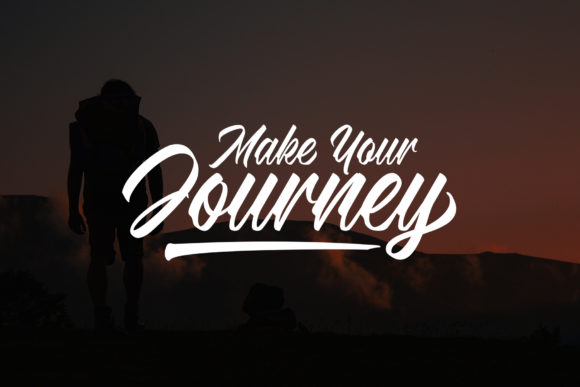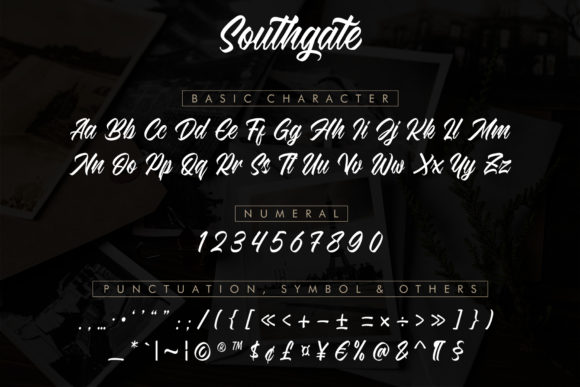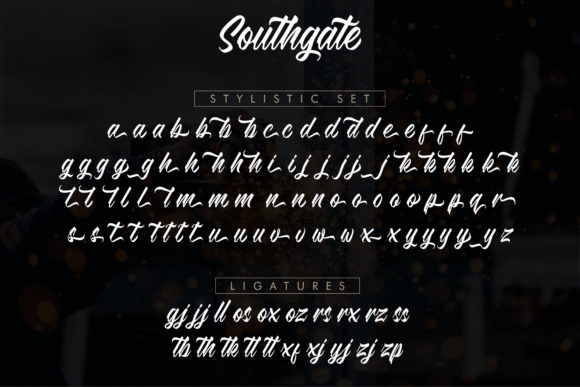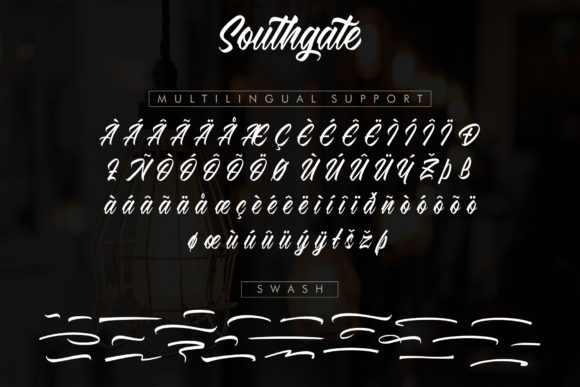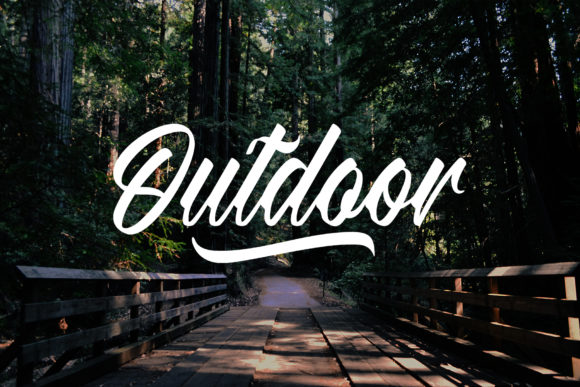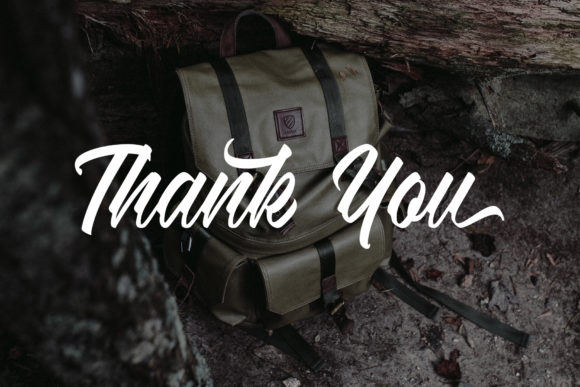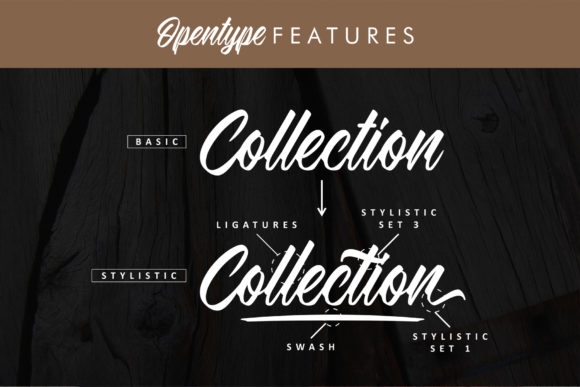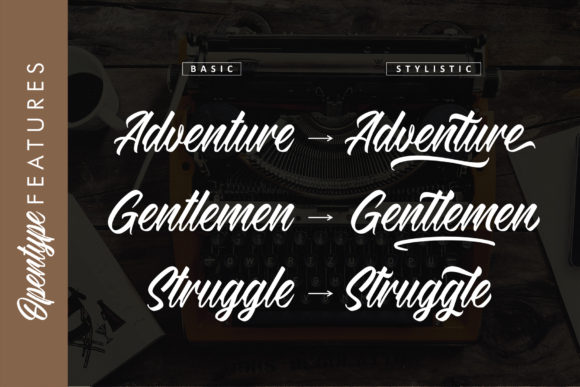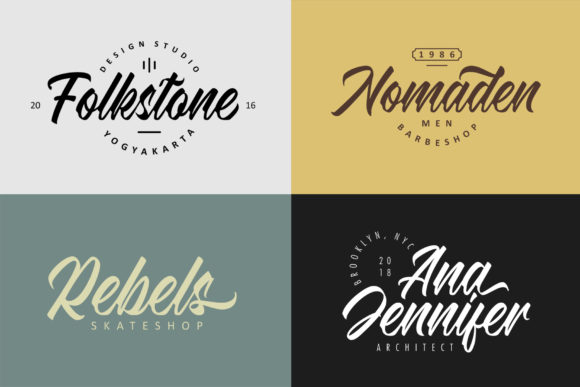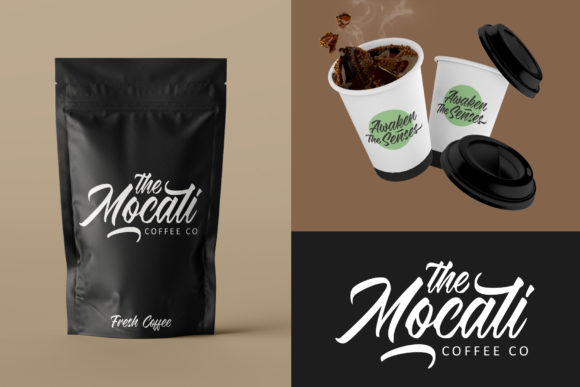
Southgate Font
About Southgate Font
Southgate is a bold and beautiful handwritten font with an incredible feel. It will turn any design project into a stand out!